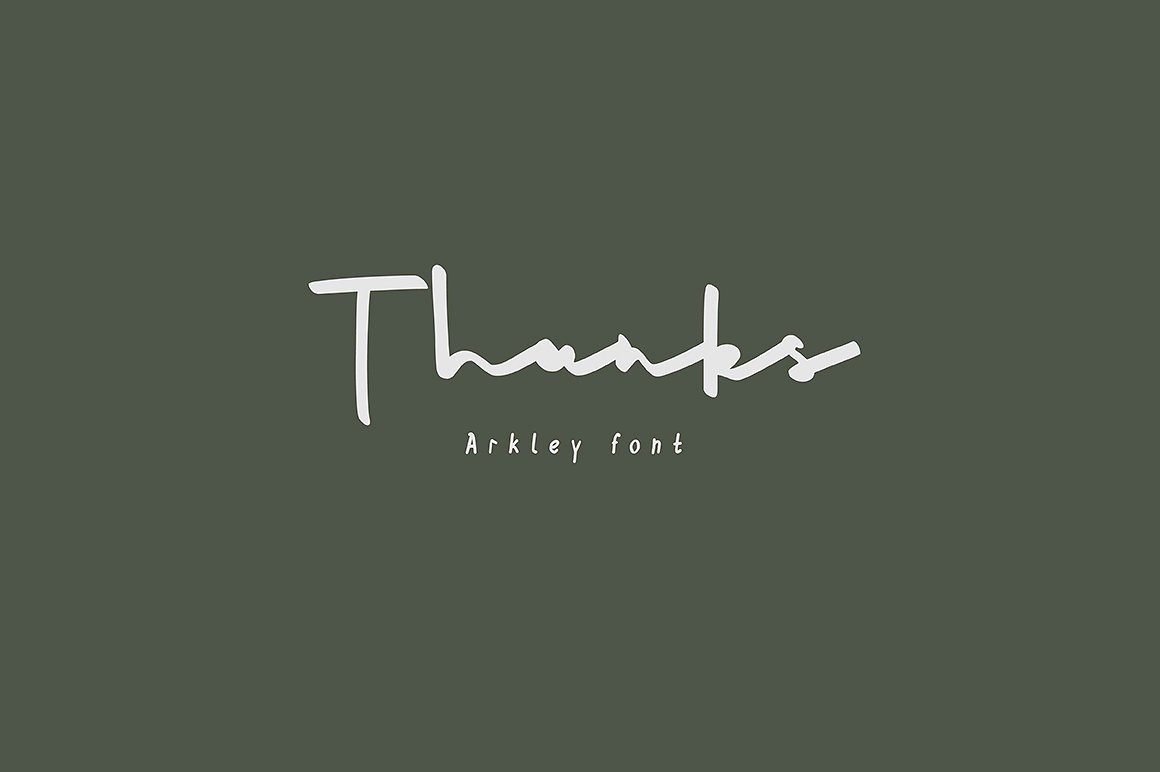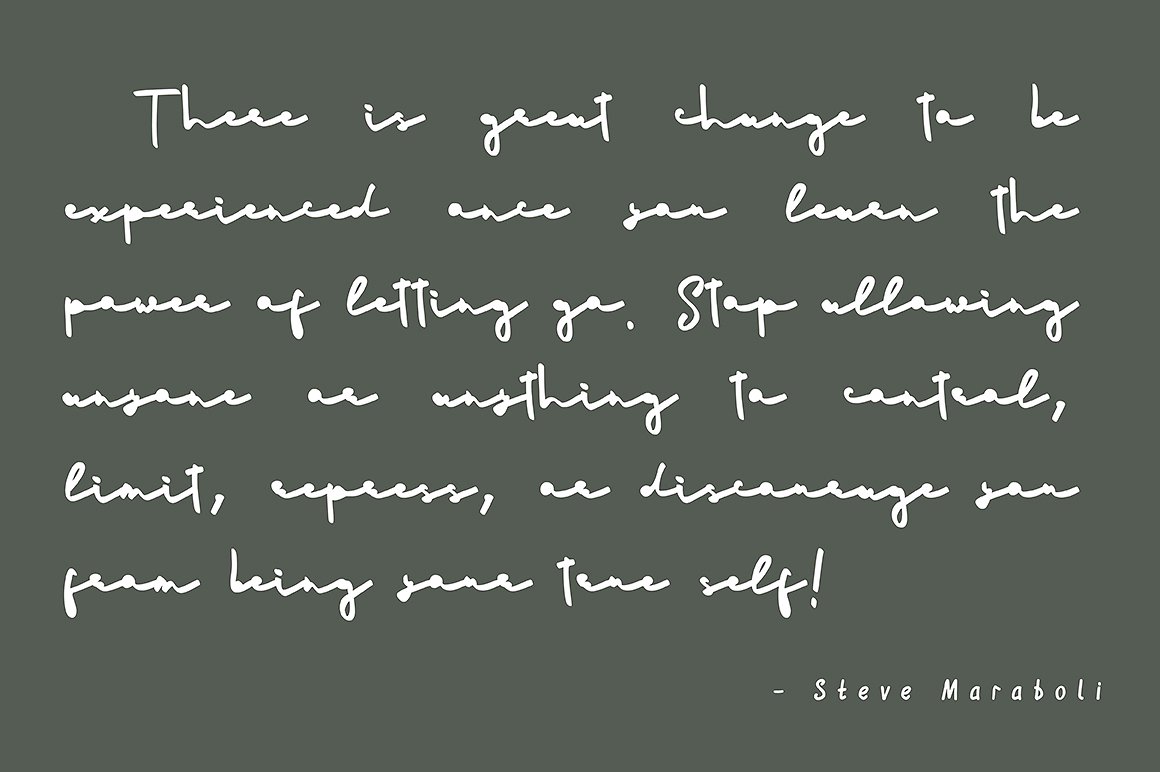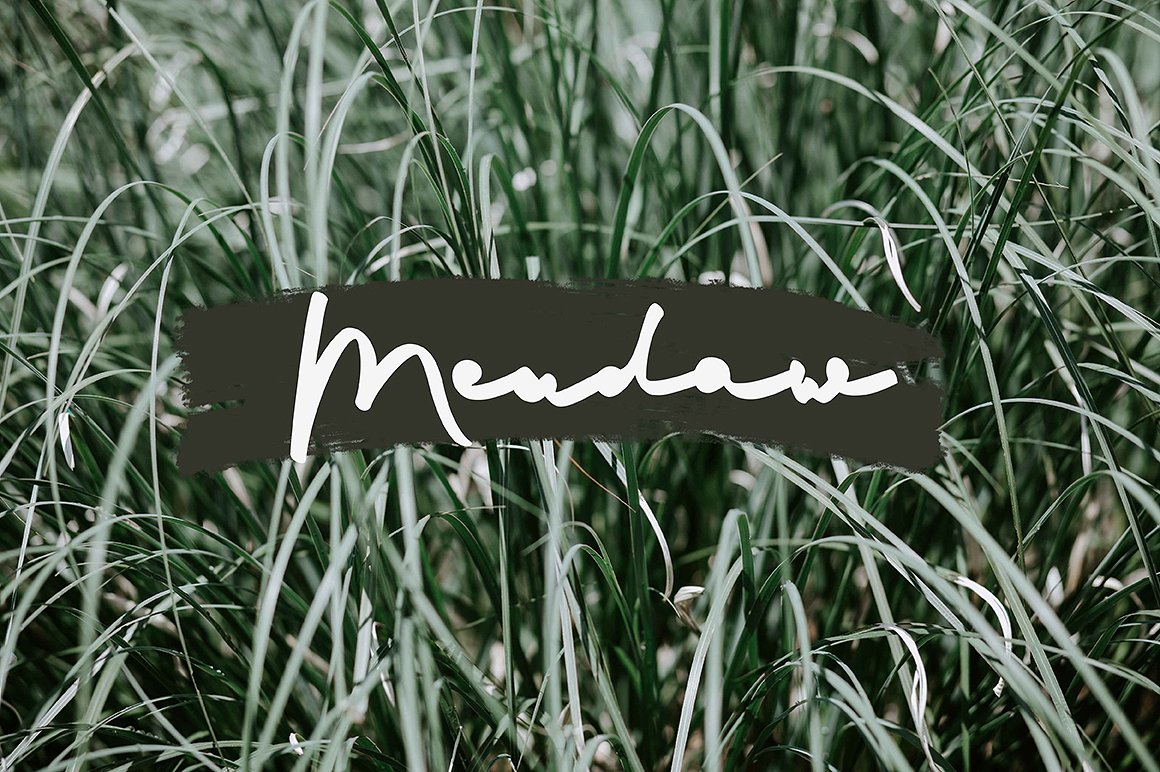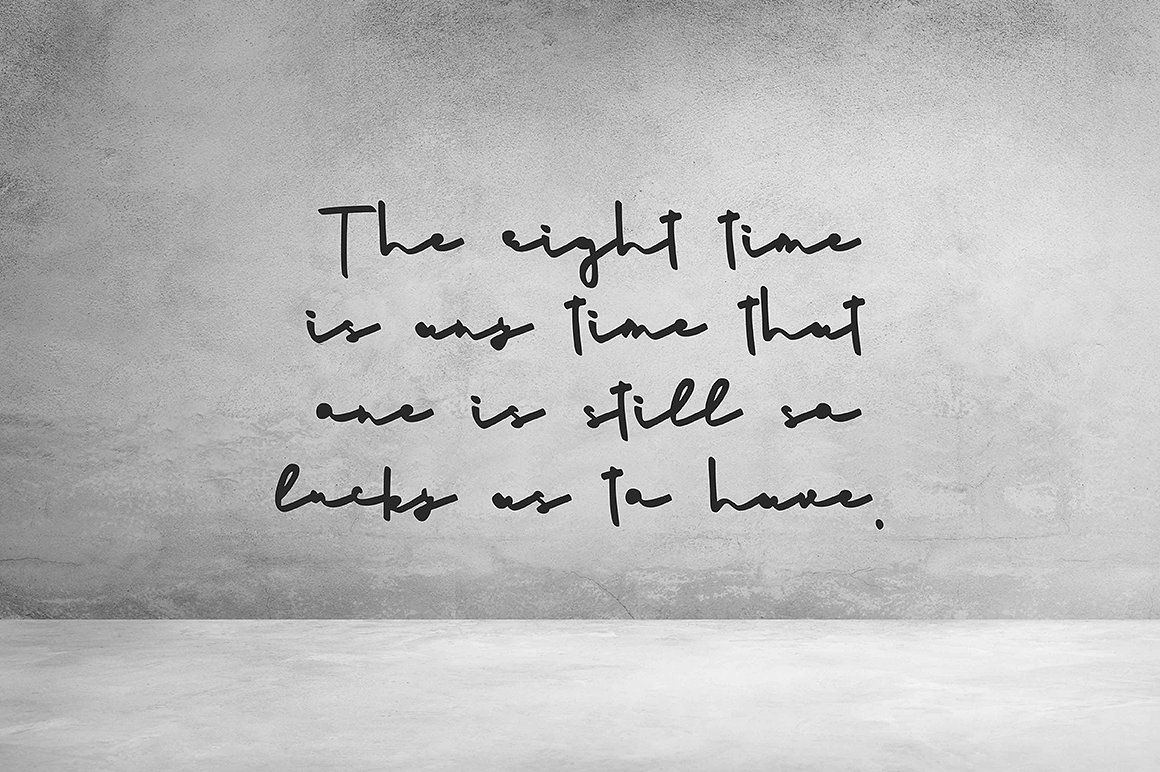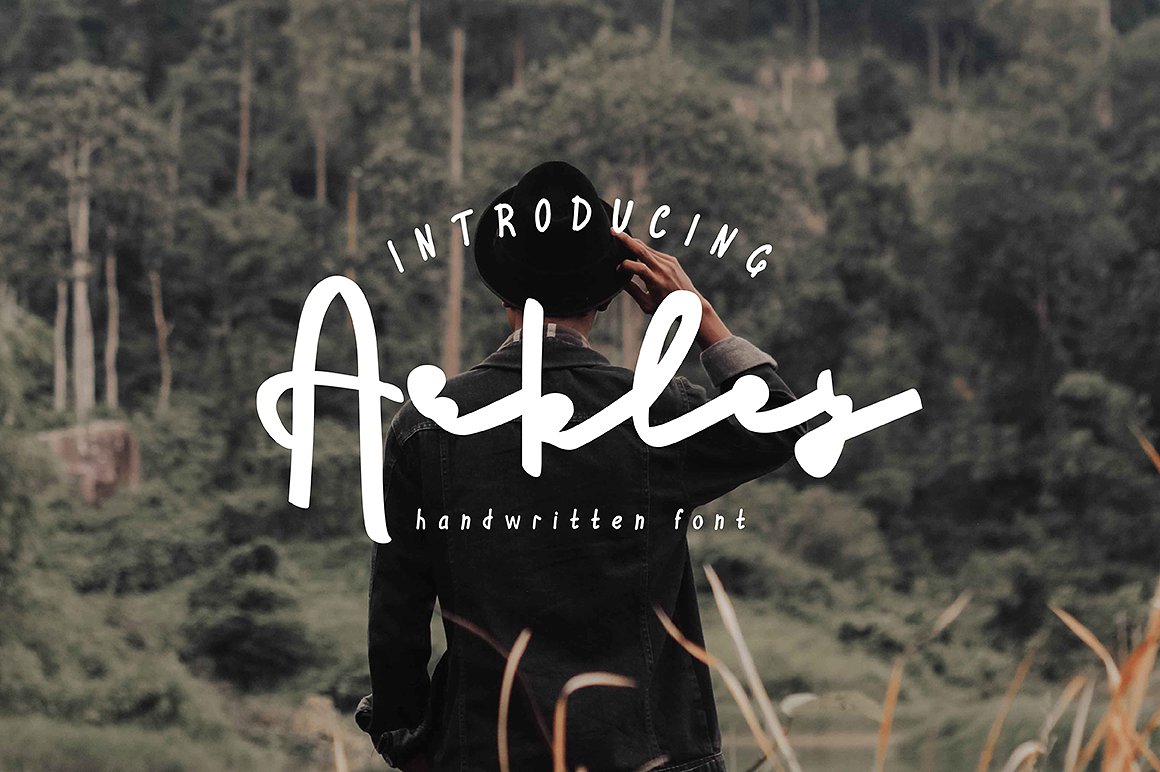
Arkley Script Font
This font can make your design look authentic and handcrafted. Suits best for almost all of your designing project; logo, blog header, poster, banding, fashion, apparel, letter, invitation, stationery, etc…Introducing Arkley Font. Arkley with its unique flow and easy signature style. Arkley comes with uppercase, lowercase, standard punctuation, numerals and special letters for most of the European languages.